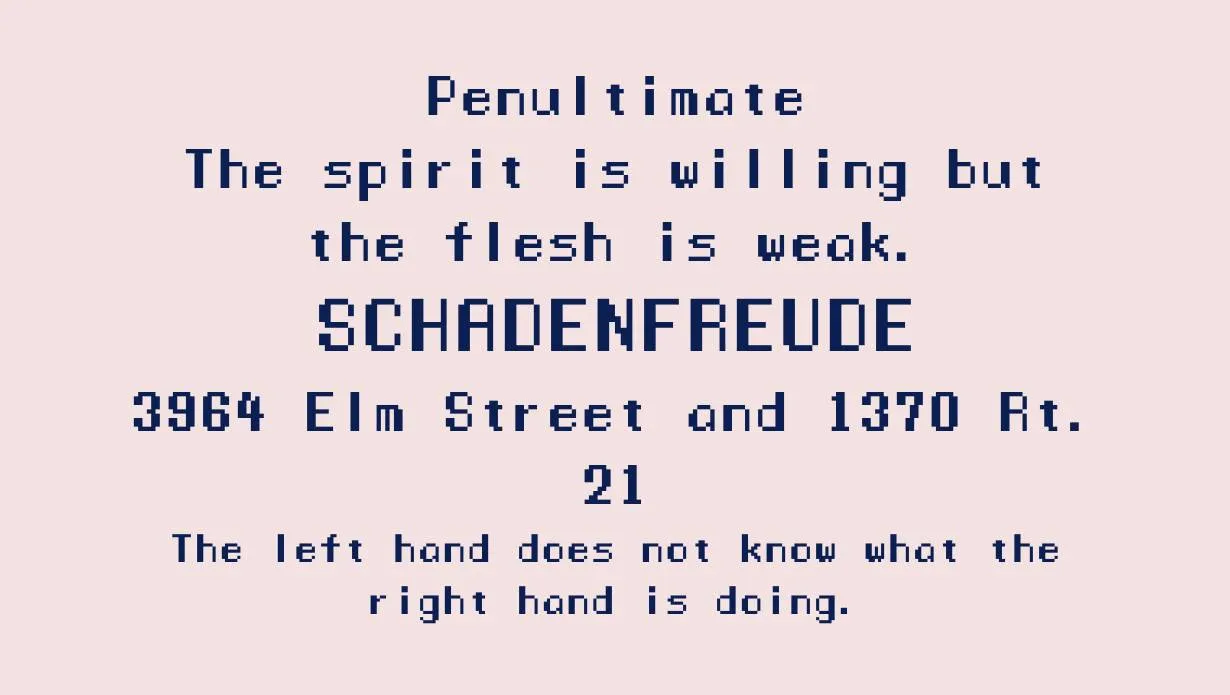
Manaspace Regular V1, created by an undisclosed designer for simplicity and clarity, is a versatile font that can be used for a wide range of design projects.
Its regular weight offers a clean and modern look, making it perfect for body text in documents, websites, or any project where readability is key. Manaspace Regular V1 strikes a balance between simplicity and style, providing a reliable option for designers seeking a straightforward yet appealing typeface.
View of Manaspace Regular V1 Font Family
| Name | Manaspace Regular V1 Font |
| Designer | Ghettoshark Arkana Gilroy |
| Style | Display |